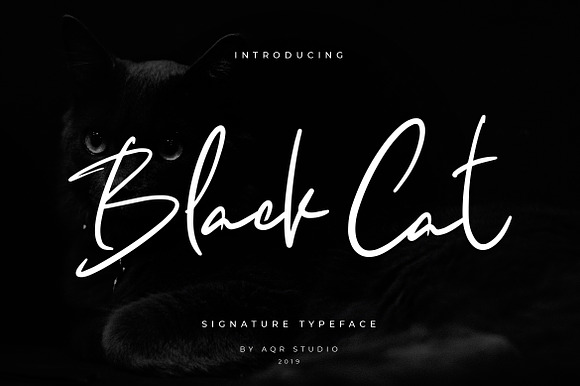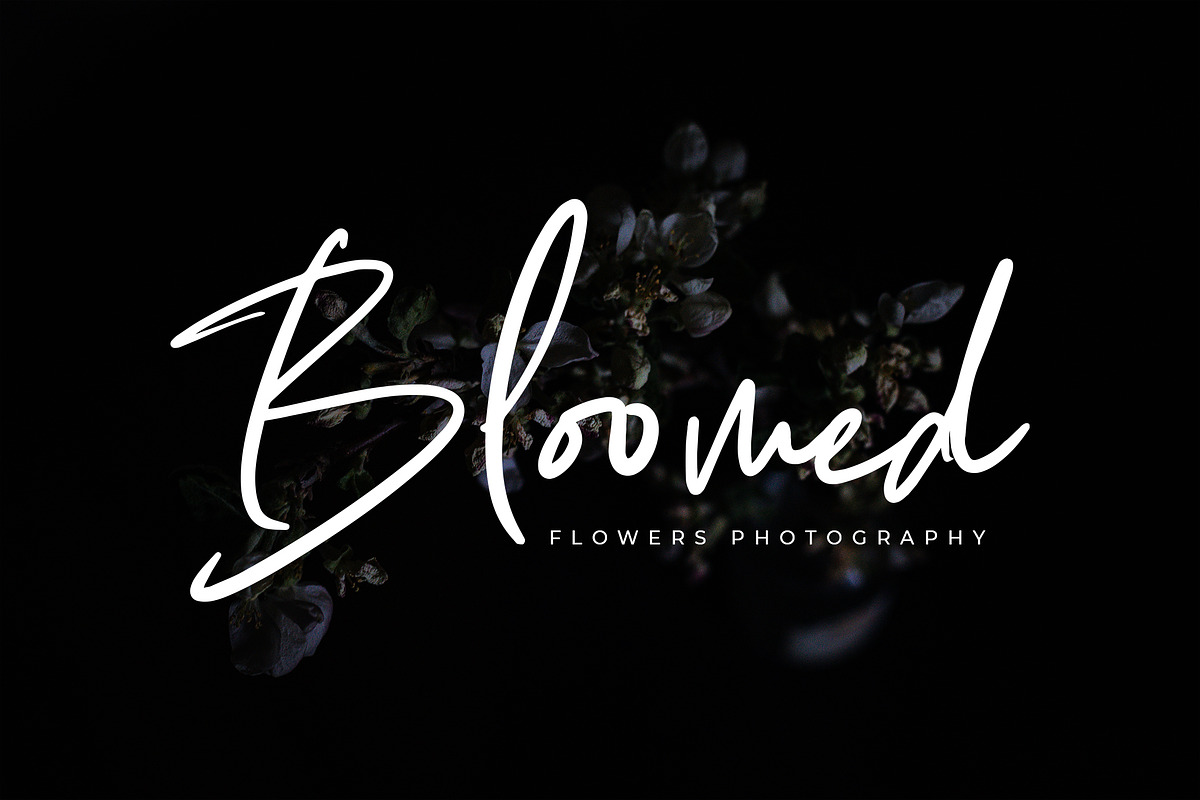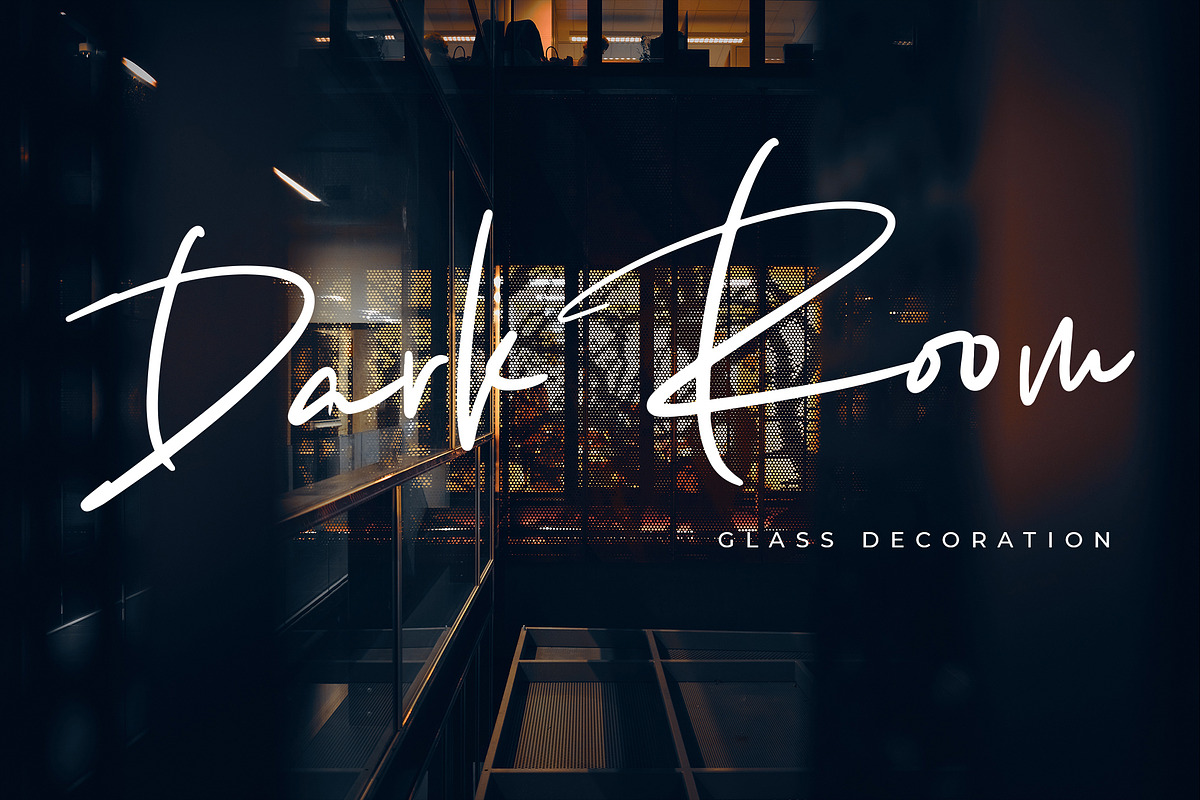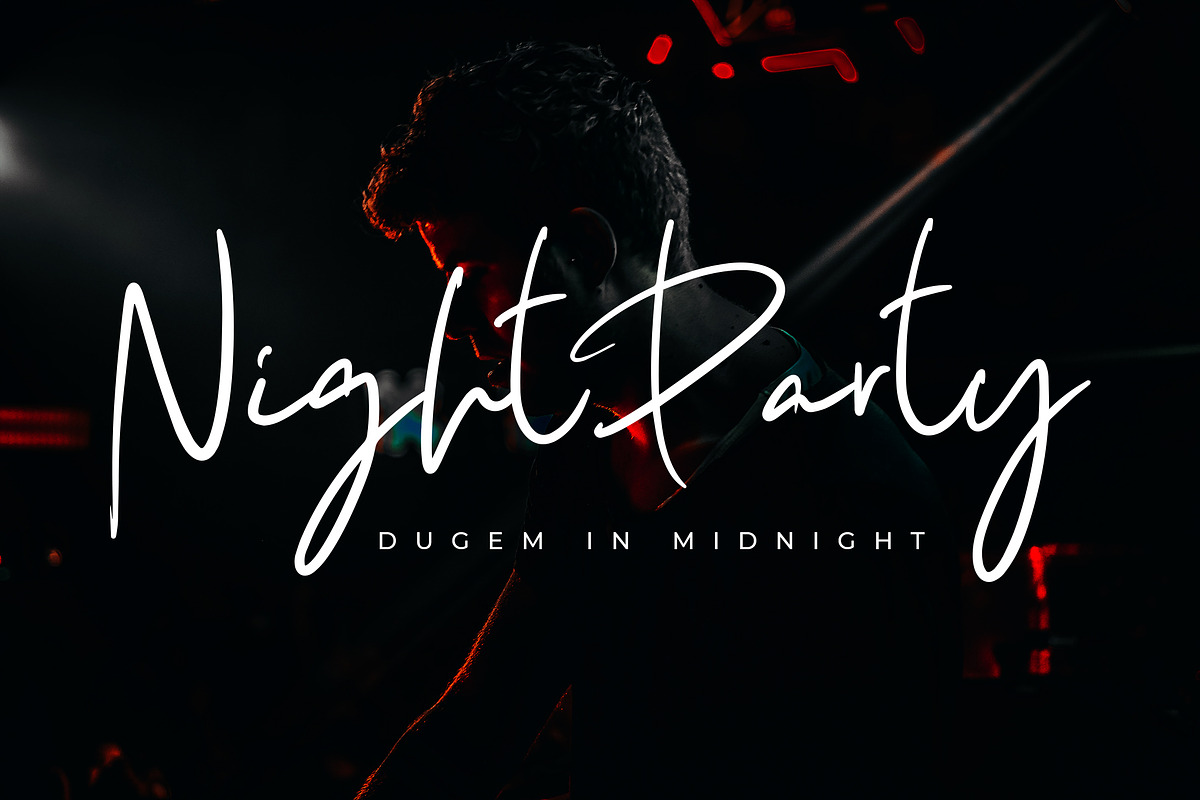
Black Cats Siganture Font
Black Cats Siganture Font that contain lowercase, uppercase, symbol, and also support multi language. There’s a lot ligatures in this font. Black Cats Siganture Font also comes with ligatures, stylistic alternates and many more. this font suitable for fashion, branding, catalog and other design what you want.
- Black Cats Siganture Font also comes with ligatures, stylistic alternates and many more.
- Black Cats Siganture Font that contain lowercase, uppercase, symbol, and also support multi language.
- There’s a lot ligatures in this font.
- Black Cats Siganture Font also comes with ligatures, stylistic alternates and many more.
Why Black Cats Siganture Font is worth a look
Black Cats Siganture Font by AQR Studio fits naturally into Branding, posters, packaging, typography.